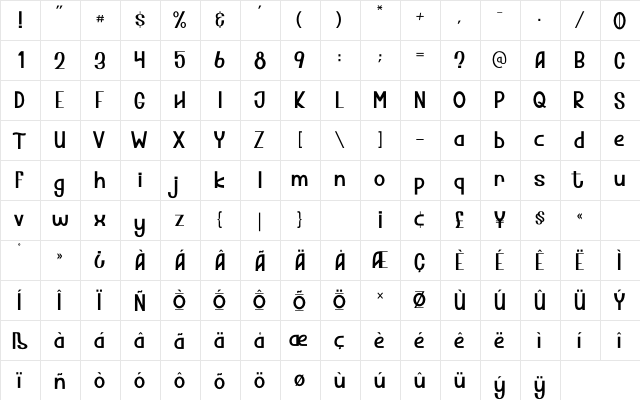
Thorsley Regular
| Designer | Doli Harahap |
Design Context for Thorsley Typeface
Thorsley offers clean, dependable letterforms without strong stylistic allegiance, making it a practical choice for designers who need flexibility.